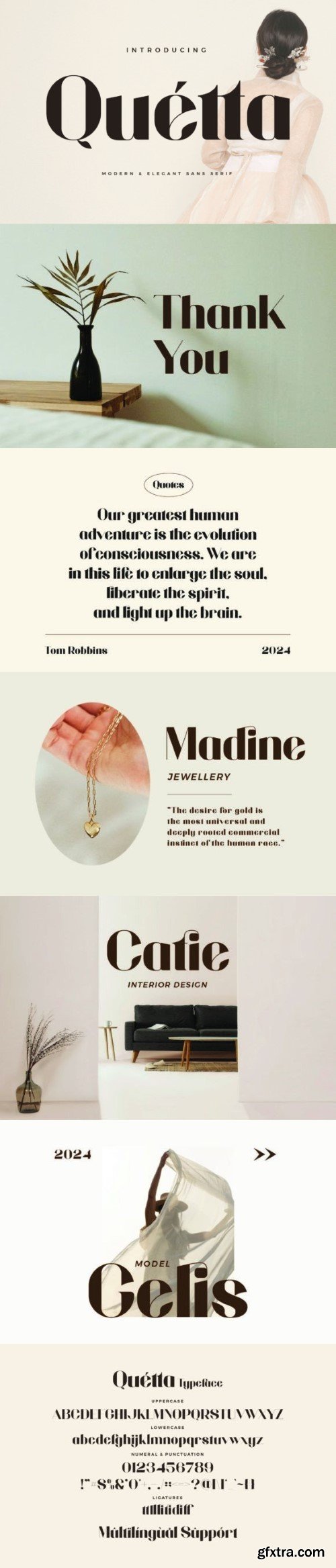
Quetta is a stylish and bold display font that commands attention with its strong presence and sleek design. Its clean lines and sharp edges make it perfect for headlines, posters, and branding materials where impact and sophistication are desired. Quetta effortlessly combines modernity with timeless elegance.